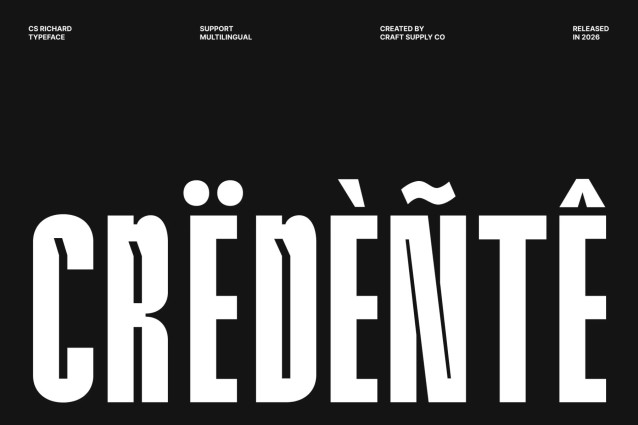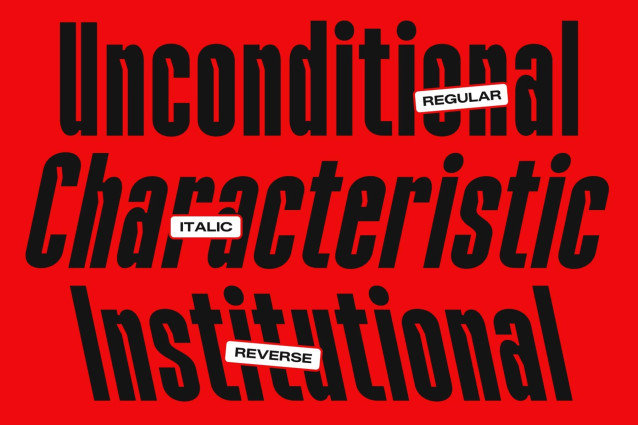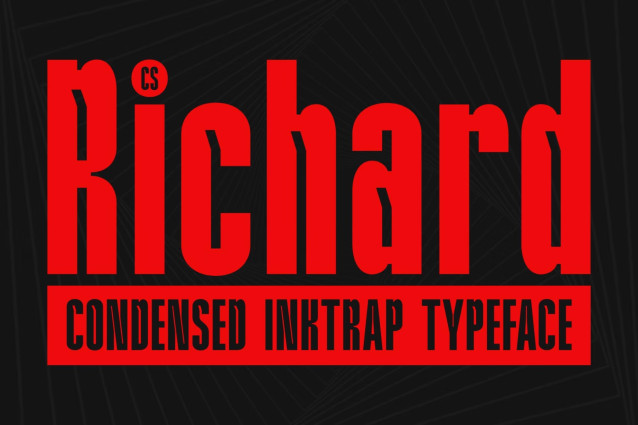
CS Richard – Condensed Inktrap Font
CS Richard – Condensed Sans Serif with Precision Inktrap Detail
Condensed Sans Serif with Modern Inktrap Character
This is a compact and modern condensed sans serif font designed to deliver strong visual impact in limited space. Built with precision inktrap details, this typeface blends technical sharpness with contemporary design, creating a powerful and confident typographic voice. It is crafted for designers who need bold presence without sacrificing clarity.
Engineered for Tight Spaces and Strong Headlines
The condensed structure allows more content to fit into smaller layouts while maintaining excellent readability. Each character is carefully shaped to feel tall, confident, and efficient, making it perfect for headlines, posters, and branding that demand attention. The narrow proportions maximize space while keeping the text visually balanced and easy to read.